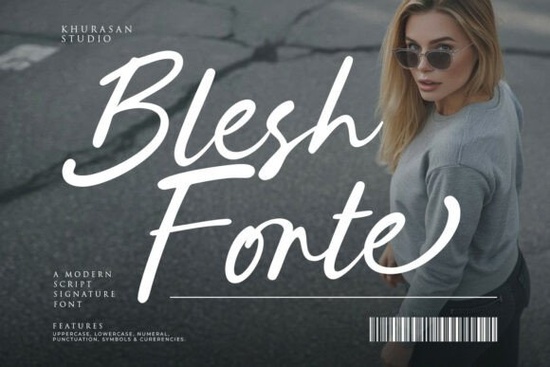
If you are looking for a script font that actually looks like it was written with a real brush, the Blesh Forte Font is a great option to consider. It captures the natural flow of hand-lettering without looking overly digital or stiff. Every stroke has a slight variation, giving your text a warm and personal feel. Whether you are designing a logo, creating wedding invitations, or putting together social media graphics, this handwriting style brings an authentic charm that connects with your audience.
What makes this brush script stand out from others?
Many digital scripts look too perfect, which takes away the human element. This font fixes that by adding a realistic brush texture to every letter. The connections between characters flow smoothly, creating a sense of movement. It feels expressive and full of personality, making it ideal for projects where you want the text to feel handmade. For crafters and print-on-demand sellers, this means your t-shirt quotes and mug designs will look like they were custom painted rather than typed out on a computer. The dynamic texture adds a layer of depth that flat vectors simply cannot match.
Where can I use this handwriting style in my projects?
The versatility of this typeface makes it a solid choice for various creative fields. Here are a few practical ways to apply it:
- Logos and branding: Give your small business a premium, approachable look that feels established yet friendly.
- Wedding designs: Add a romantic, personal touch to invitations, seating charts, and menu cards.
- Product packaging: Make your labels, boxes, and tags stand out on the shelf with a custom, artisanal vibe.
- Social media posts: Create engaging quotes, story highlights, and promotional graphics that stop people from scrolling.
- Digital planners: Use it for cover titles or section headers to give your digital products a cozy, personalized aesthetic.
How does it compare to other popular script fonts?
What are some tips for pairing this font with others?
Since this is a highly decorative brush script, you need to pair it with something simple so your design stays readable.
- Use a clean sans-serif for your body text, descriptions, or subheadings to balance the heavy visual weight of the script.
- Keep the letter spacing tight in the script to maintain the connected flow, but give the secondary font some breathing room.
- Stick to two fonts maximum per design to avoid visual clutter and keep the focus on your main message.
- Use underlines or subtle background shapes behind the script if you are placing it over a busy photograph.
Before you finalize your next design, run through this quick checklist to ensure everything looks perfect:
- Check the ligatures and alternate characters in your design software to find the most natural letter connections.
- Test the font size on both mobile screens and printed materials to ensure readability.
- Ensure the brush texture remains clear and doesn't turn into a blob when scaled down for small labels.
- Save your final files with the text outlined or converted to curves if you are sending them to a commercial printer.